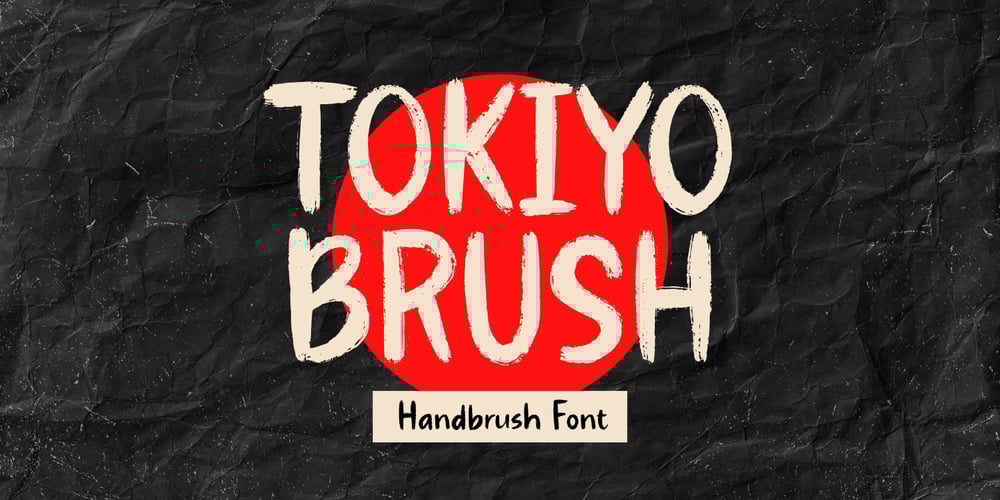
Tokiyo Brush
Tokiyo Brush font
Tokiyo Brush Font Family was designed by Muhamad Yusron Billah and published by Sronstudio. Tokiyo Brush contains 1 styles and family package options. Tokiyo Brush is a bold, energetic handbrush font that brings a raw, artistic vibe to any design. With its textured strokes and expressive style, it’s perfect for posters, branding, and designs that need a touch of urban flair. Add personality and impact with Tokiyo Brush!Included:- Upper & Lowercase- Numeral & Punctuation- PUA Encoded- Multilingual support- Simple Installation- Work both on Mac and WindowsThank you very much 🙂